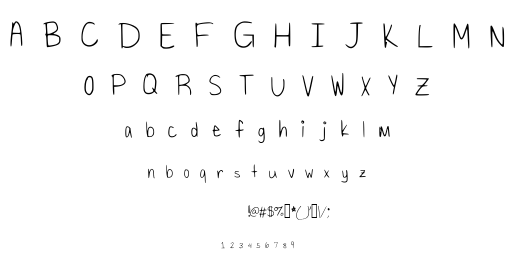
Hello! Cadet here. This is one of my first fonts that I scribbled with my own handwriting. It’s free to use for anything. I apologize for the lack of a lot of symbols, but I promise I’ll try to include a lot more of them in more of my fonts. Have fun! ♥